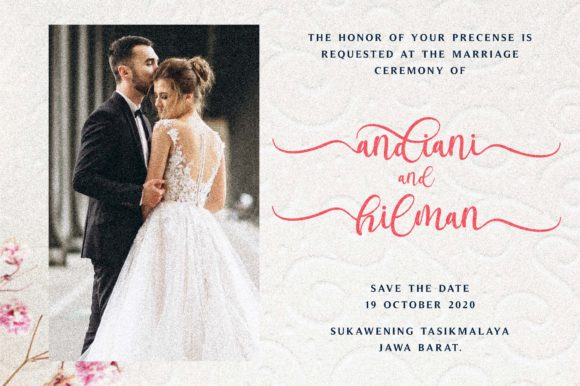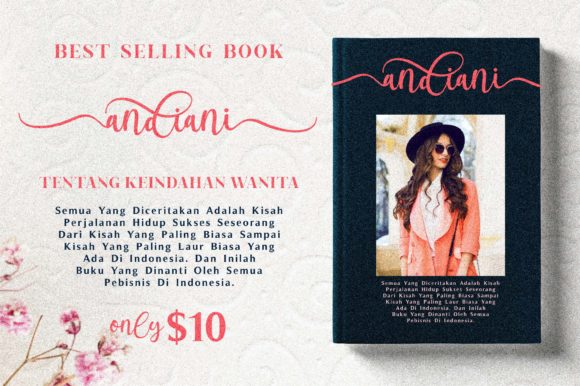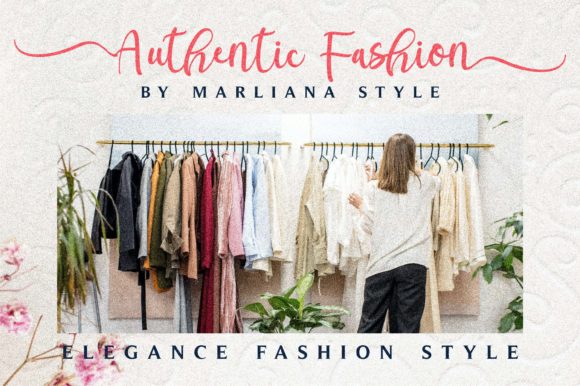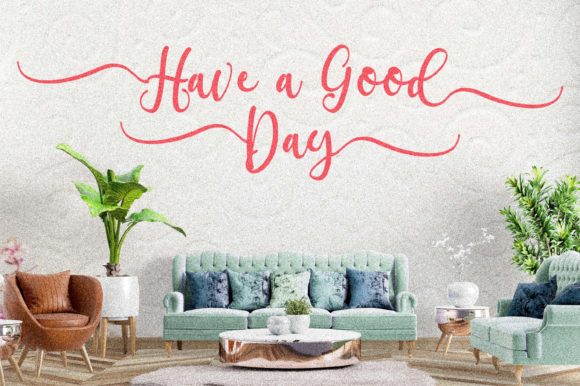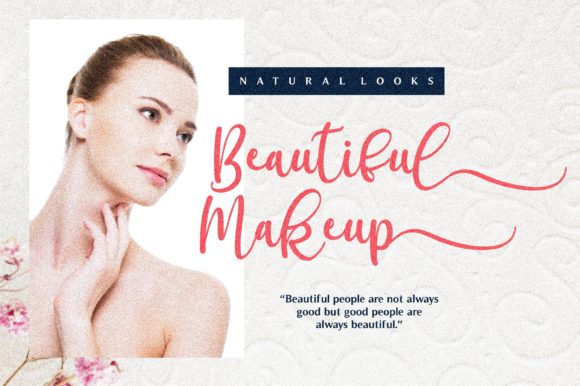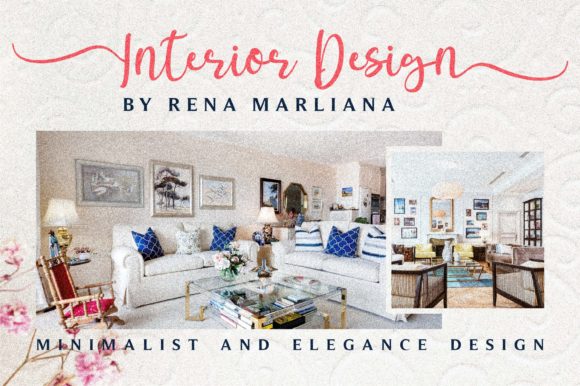
Discover the Beauty of the Andiani Font
There’s something magical about finding the perfect font to bring your design to life. You’re browsing through your font library, and suddenly, you stumble upon that one font that just clicks. For many designers, this moment is a game-changer. It’s the moment when all the pieces come together, and your vision starts to take shape. For me, that moment came when I discovered the Andiani Font.
The Andiani Font is a stunning, handcrafted script font designed to add a touch of elegance to any design. With its beautiful, balanced characters and gorgeous glyphs, it’s no wonder this font has become a favorite among designers. Whether you’re working on a wedding invitation, a logo, or a brochure, the Andiani Font is sure to impress. Its versatility and sophistication make it a valuable addition to any designer’s toolkit.
Andiani Font Key Features
- Character Set: The font includes a comprehensive character set, covering Latin, Cyrillic, and Greek alphabets, as well as a range of punctuation and symbol characters.
- Unique Characteristics: The Andiani font features a unique, hand-drawn design with intricate details and subtle flair, making it a distinctive and eye-catching choice for typography.
- Font Styles: The font includes a range of font styles, including regular, italic, bold, and bold italic, allowing for flexibility and versatility in design applications.
Andiani Font Review
I recently had the chance to work with the Andiani font, and I must say it’s a unique and interesting choice. ✨ One of the things that stands out to me is the font’s bold, playful feel. It’s perfect for creating eye-catching headlines or titles that need to grab the viewer’s attention.
Another aspect of the Andiani font that I appreciate is its high level of customizability. ✨ It comes in a range of weights, from light to bold, and even includes some fun alternates and swashes to add some extra flair to your designs.
- ⚠️ The font may be a bit too playful for some projects. If you’re looking for a more serious or professional font, Andiani might not be the best choice.
- ⚠️ The font’s high level of customizability can also be a bit overwhelming. With so many options available, it can be difficult to decide which style to use in a given project.
Overall, I think the Andiani font is a great choice for designers who want to add a bit of personality to their projects. It’s perfect for creative agencies, startups, or anyone looking to create a unique brand identity.
Andiani Font is ideal for:
- Create a custom title page with the journal’s name in bold, cursive Andiani Font.
- Use the font for headings and subheadings throughout the journal to add visual hierarchy and create a sense of flow.
Unleashing the Potential of Andiani Font
Project 1: Whimsical Woodland Journal
Create a beautifully designed journal that captures the essence of a whimsical woodland. The Andiani Font will add a touch of elegance and sophistication to your design.
Use the Andiani Font to:
Create a sophisticated brand identity for a luxury fashion brand using the Andiani Font. The font’s elegance and sophistication will perfectly capture the essence of high-end fashion.